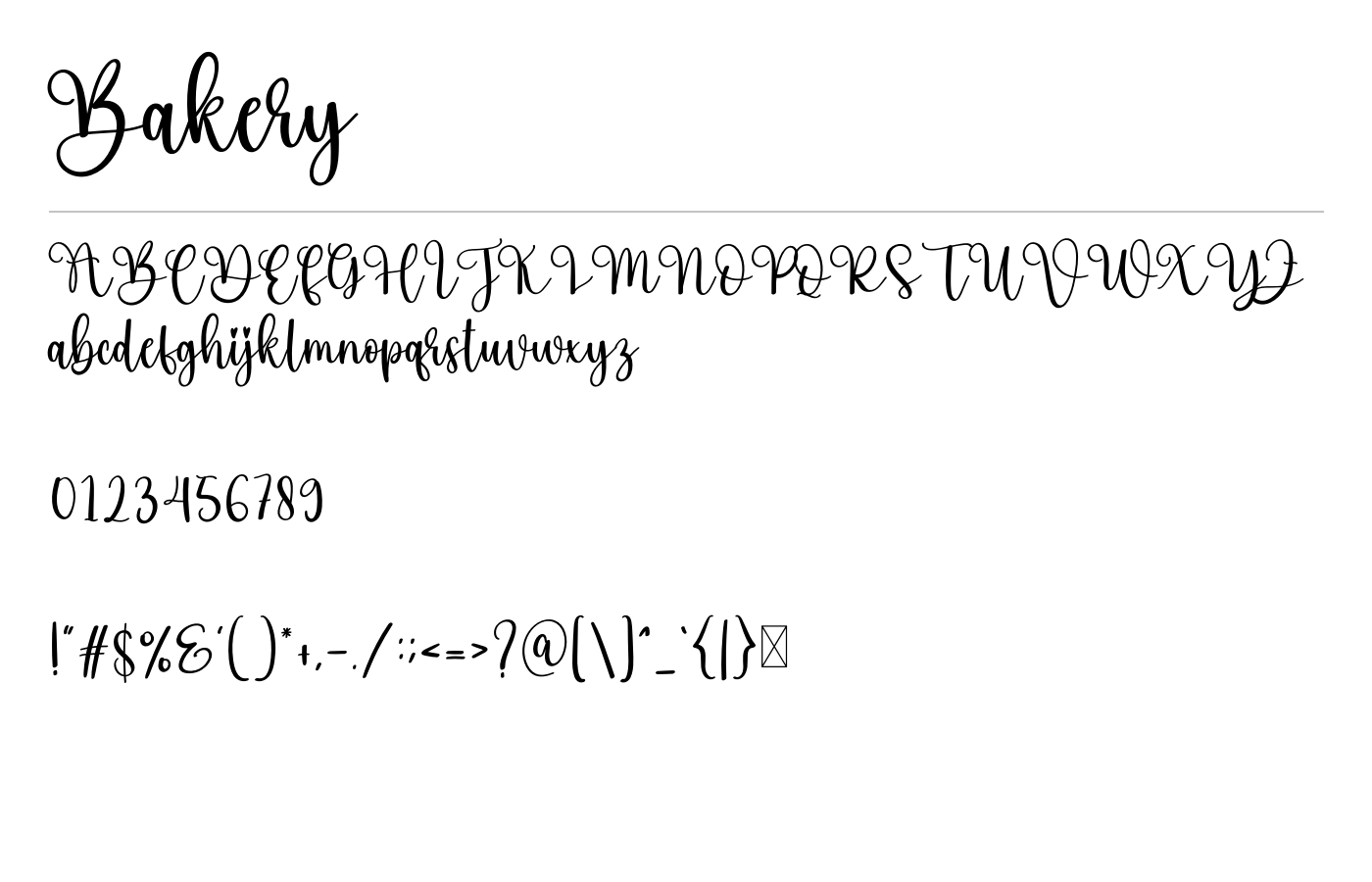
Bakery Font is a charming and elegant script typeface with flowing, decorative strokes that convey a friendly and whimsical personality. Its smooth, medium-weight lines and graceful letterforms make it perfect for branding, invitations, and packaging that seek a personal, handcrafted feel. This font shines in creative, playful contexts where a touch of warmth and sophistication is desired.
Bakery Font
About Bakery Font